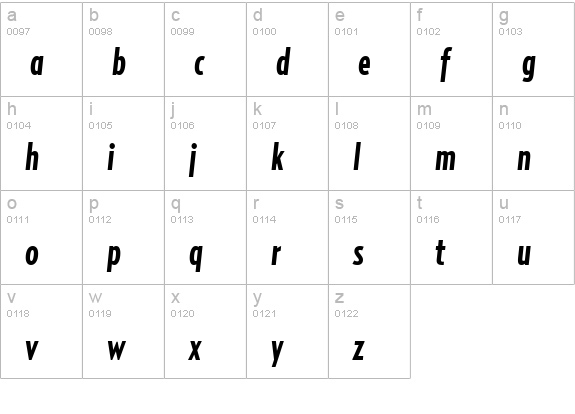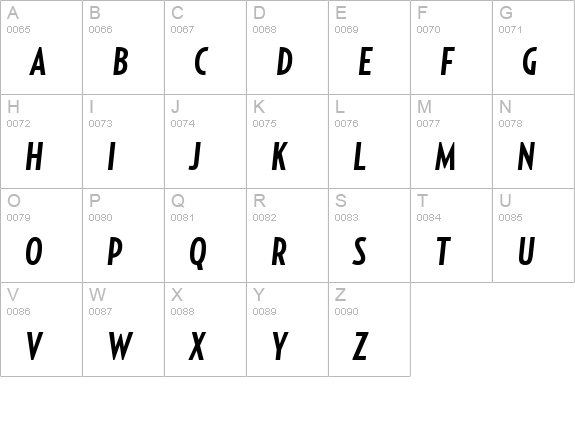
RelayComp-BoldItalic Font Details
RelayComp-BoldItalic font is a stunning display typeface that exudes elegance and sophistication. Its bold and italicized design adds a touch of drama and flair to any project, making it a perfect choice for headlines, titles, and logos. The unique combination of thick strokes and slanted letterforms creates a visually striking effect, capturing attention and leaving a lasting impression. Whether used in print or digital media, RelayComp-BoldItalic stands out with its distinctive style, making it a versatile font for a wide range of creative applications. One of the best things about RelayComp-BoldItalic font is that it is freely available to download at FontsMarket.com. This means that designers and enthusiasts alike can easily access this exceptional typeface without any hassle. With just a few clicks, you can have this remarkable font at your fingertips, ready to elevate your designs to new heights. With its seamless legibility and artistic appeal, RelayComp-BoldItalic font brings a sense of professionalism and sophistication to any project. Its versatility allows it to be used in various design contexts, from branding and advertising to editorial and web design. Whether you are looking to make a bold statement or add a touch of elegance, RelayComp-BoldItalic font is the perfect choice. In conclusion, RelayComp-BoldItalic font is a free, breathtaking typeface that will undoubtedly elevate the visual impact of your projects. Its captivating design, combined with its easy accessibility at FontsMarket.com, makes it an essential addition to any designer's toolkit. Download RelayComp-BoldItalic today and unleash your creativity like never before.